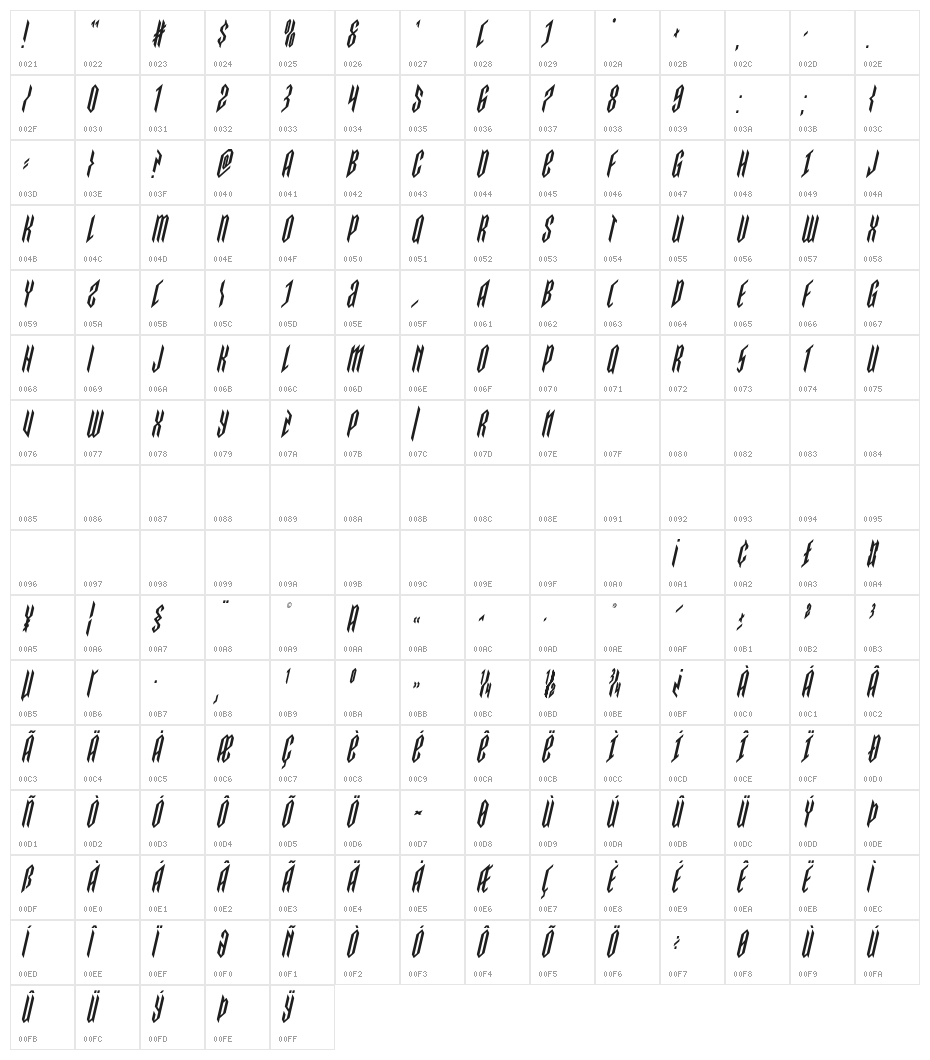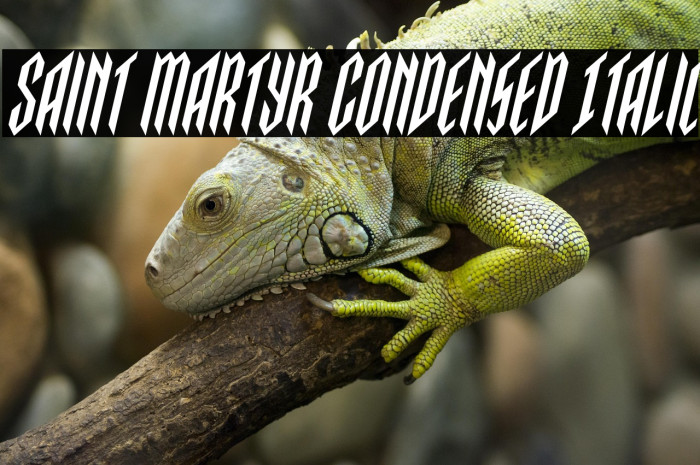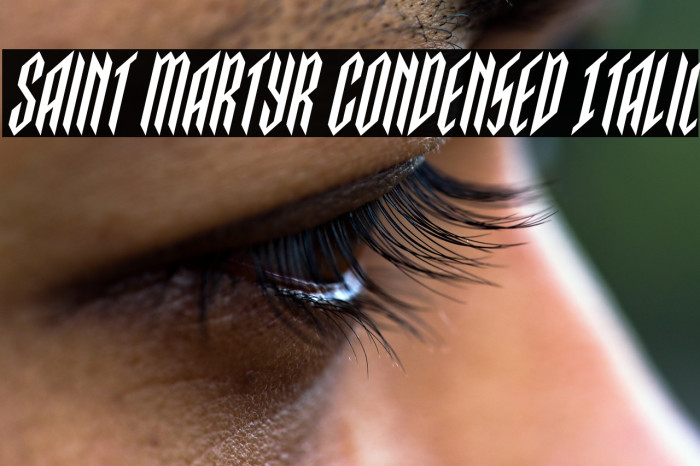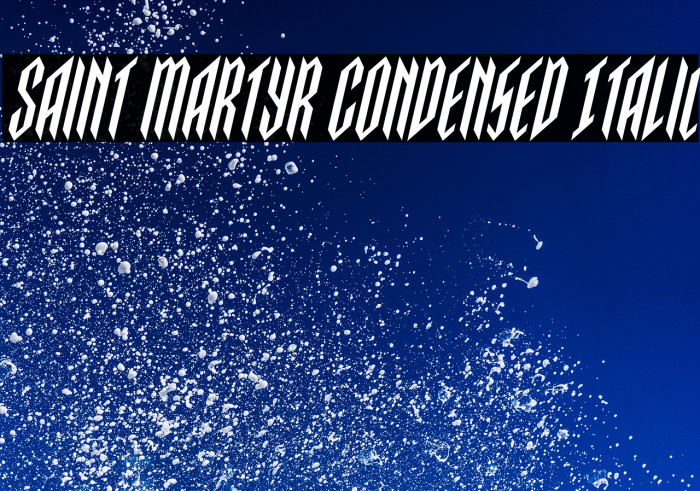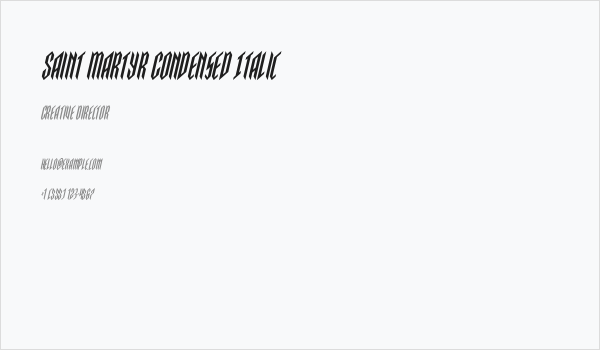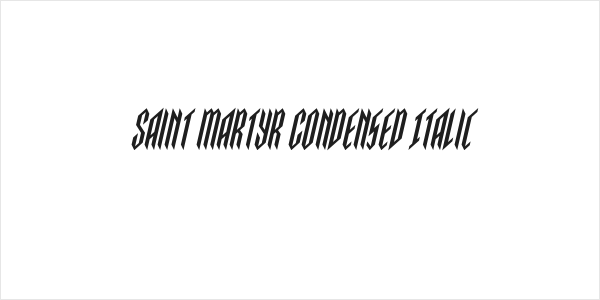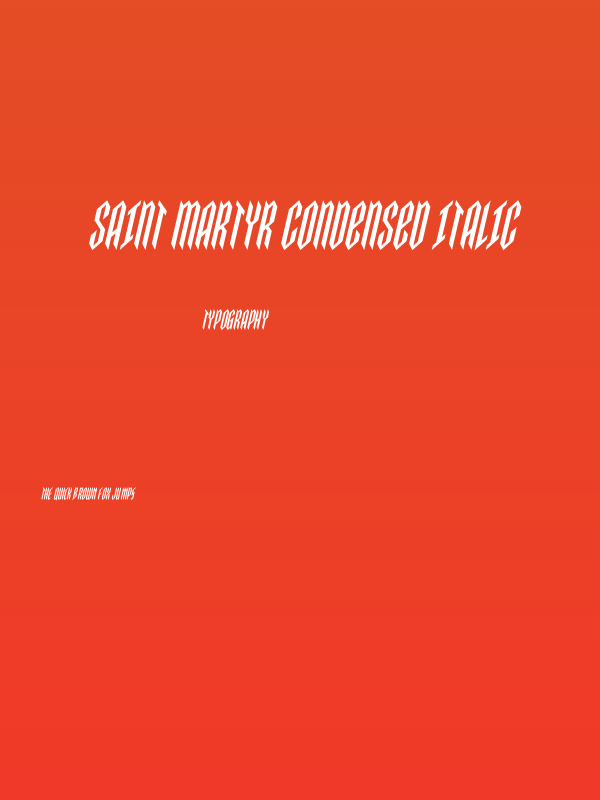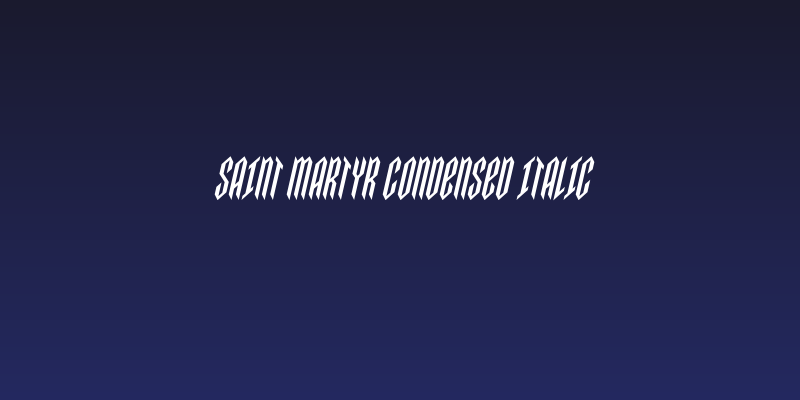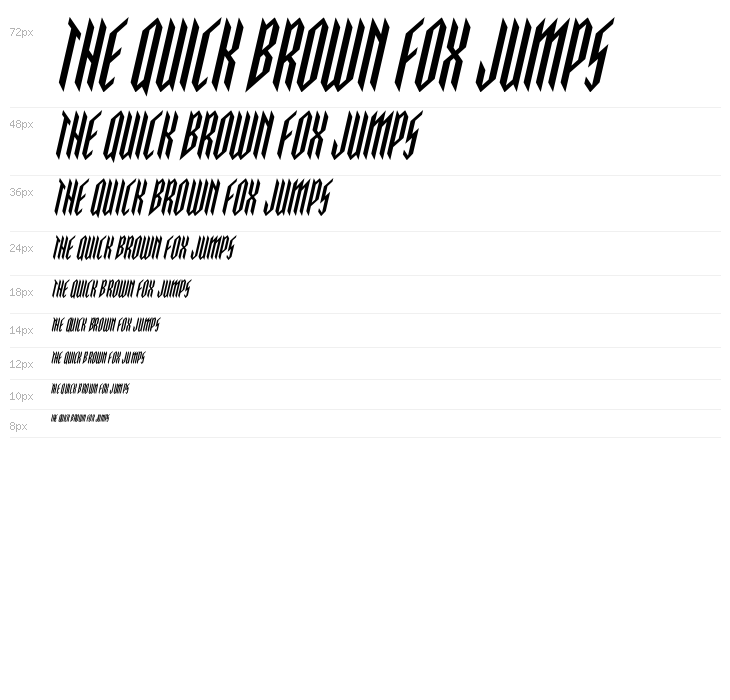
Saint Martyr Condensed Italic Font
Saint Martyr Condensed Italic Description
This font features a bold, condensed style with a distinct italic slant, giving it a dynamic and energetic appearance. The characters are sharply angular, with pointed edges and a strong vertical emphasis. The uppercase and lowercase letters maintain a consistent height, contributing to a uniform look across the text. The numbers and special characters follow the same angular design, ensuring cohesion throughout. The overall aesthetic is modern and edgy, making it suitable for attention-grabbing headlines and impactful designs.
| Proposed Projects | Ideal for use in branding, posters, and editorial design where a strong, modern impact is desired. |